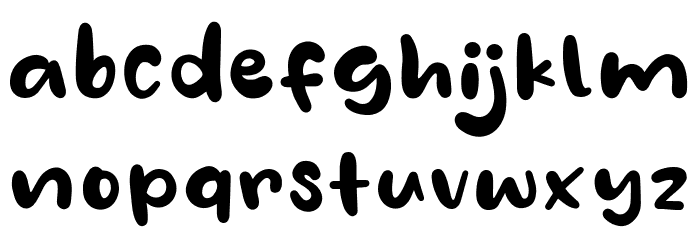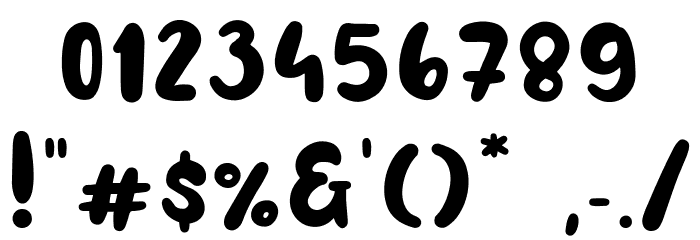
Hujan Font
This playful and rounded font exudes a friendly and approachable vibe, making it ideal for casual and informal designs. The characters are bold and slightly irregular, giving them a hand-drawn appearance that adds a touch of whimsy. The uppercase and lowercase letters are well-balanced, with a consistent stroke width that ensures readability. The numbers and special characters maintain the same playful style, making them suitable for a variety of creative projects. This font is perfect for designs that aim to convey warmth and friendliness.
A playful, rounded font with a hand-drawn, friendly style.
- Font: Hujan
- Proposed Projects: Ideal for children's books, greeting cards, playful branding, and social media graphics.
- Category: Handwritten
- Overall Style: Playful
- Use Case: Headlines, Logos, Informal Text